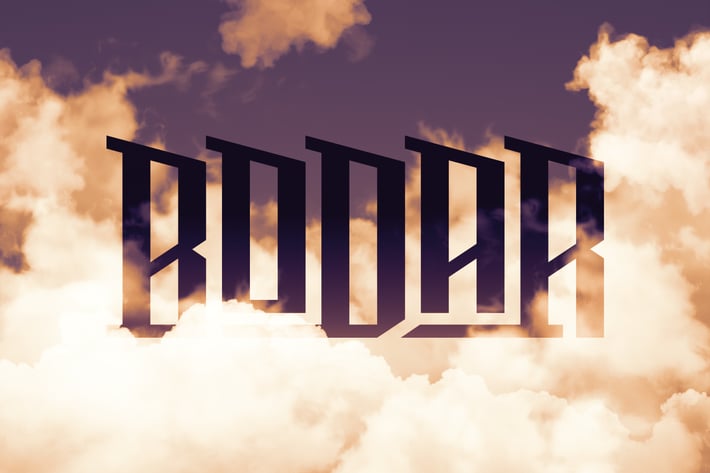
Bodar typeface
Bodar typeface was inspired by a dystopian modern future. With its down slanted top parts It has a unique yet distressed appearance that gives the whole appearance an inner stress.
The overall looking of this typeface is suitable for anyone who wants to achieve something strange, modern and impressive.
26 standard letters all capitals
0-9 Numbers
39 Glypshs